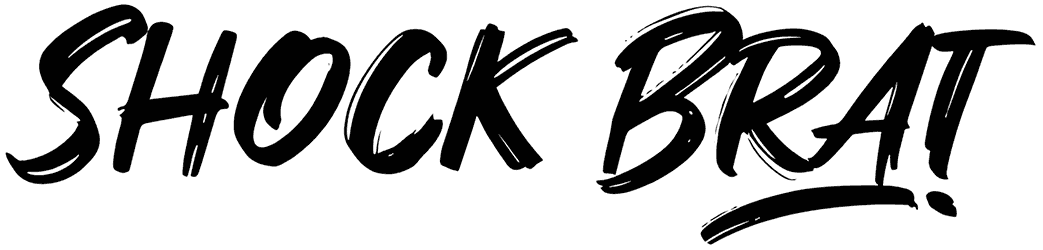
Shock Brat Font
If you want to convey an urban and cool vibe to your viewers, this brush font can be a nice option. Shock Brat font, with its natural hand-lettering, is a catchy item for a lot of creative designs. There is no offer for lowercase, but with two sets of capitals, Shock Brat can be a salient choice for your intended designs, from backgrounds to packaging.